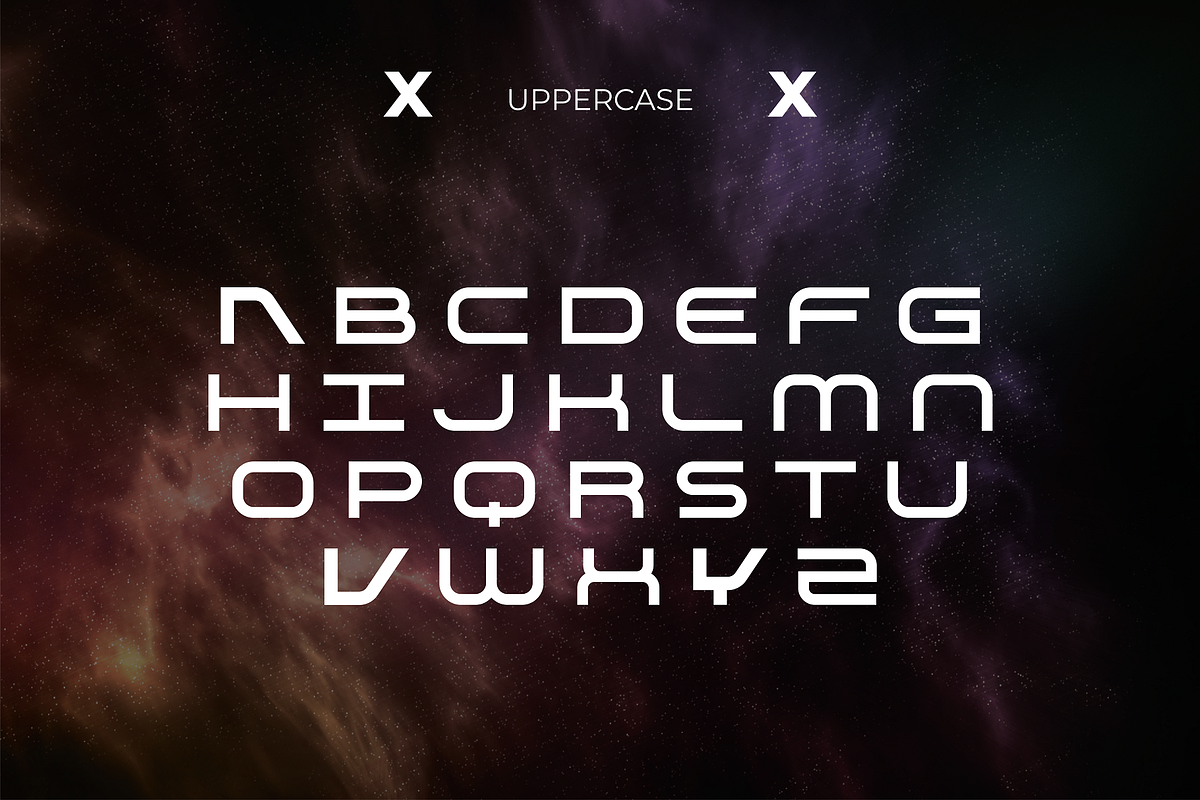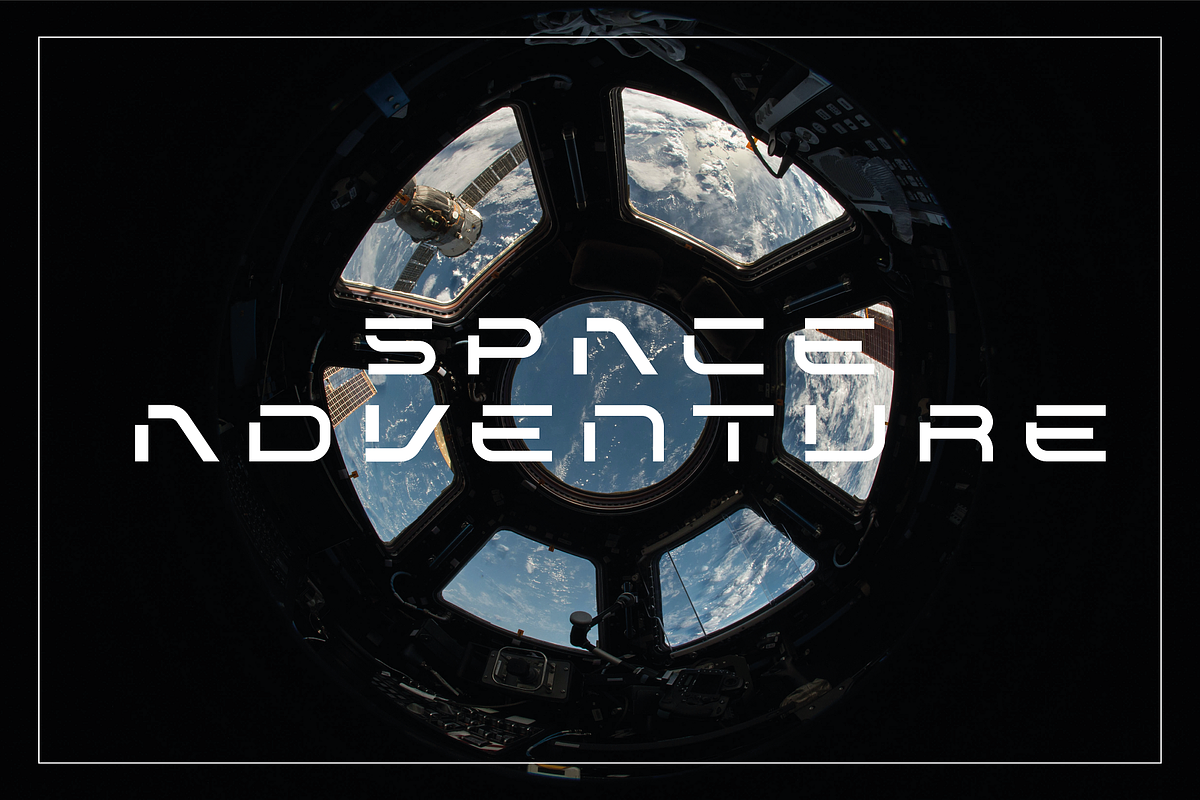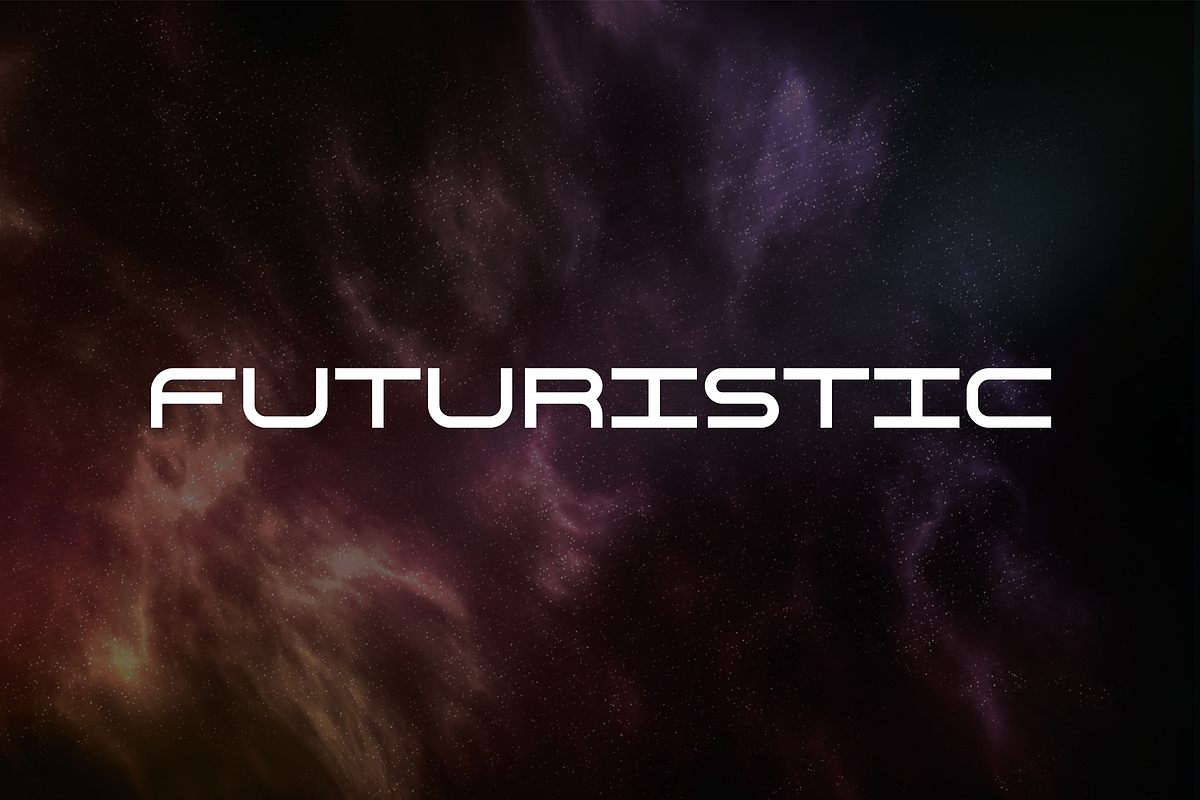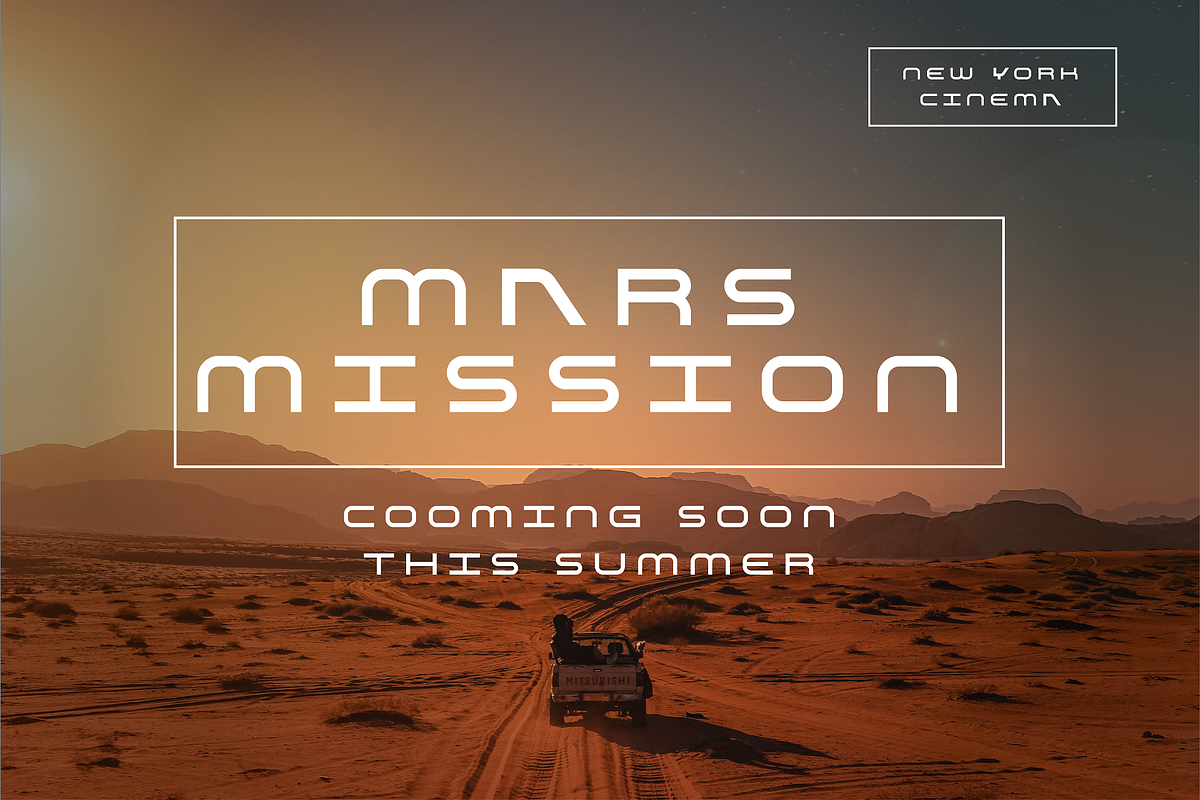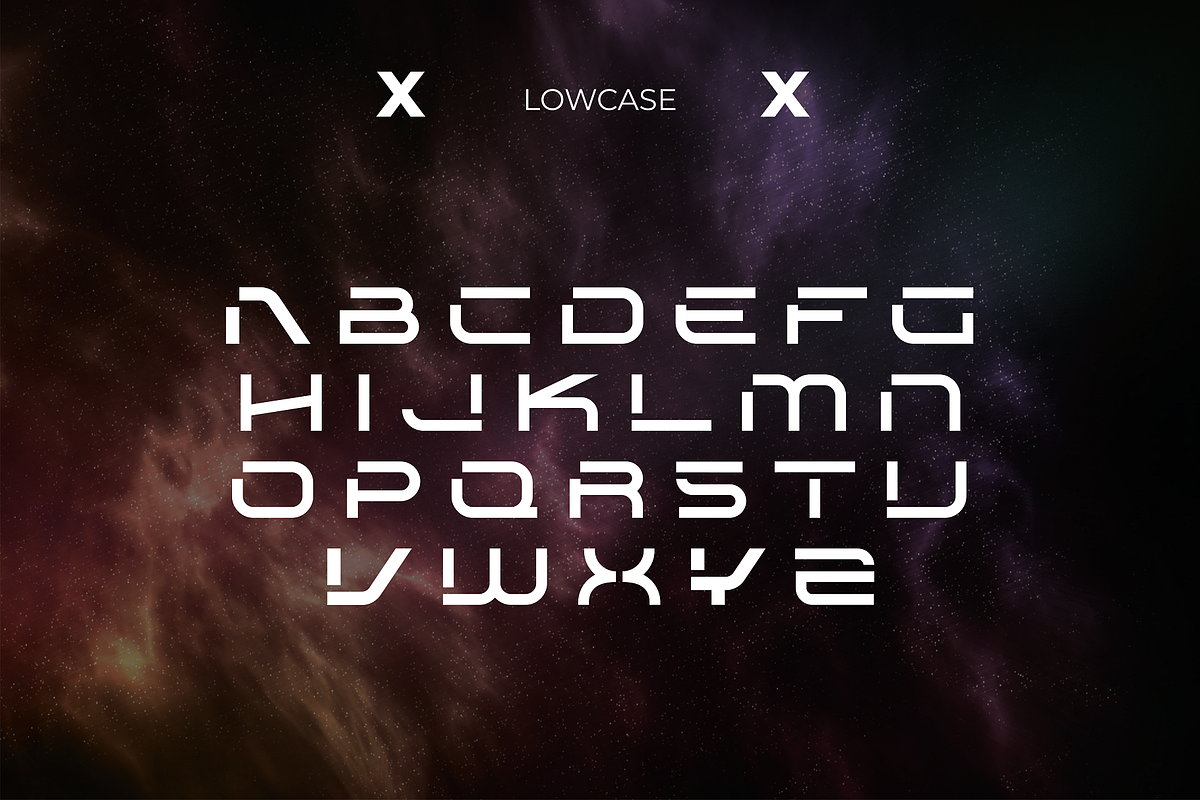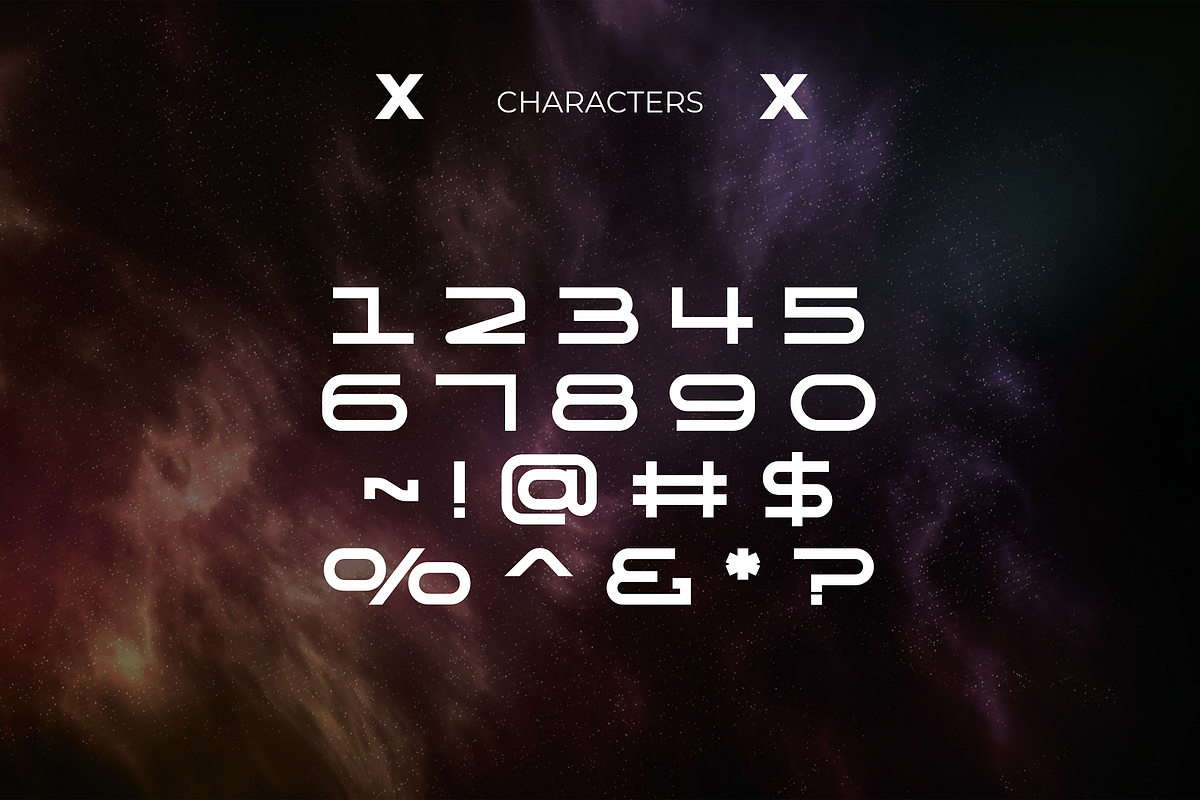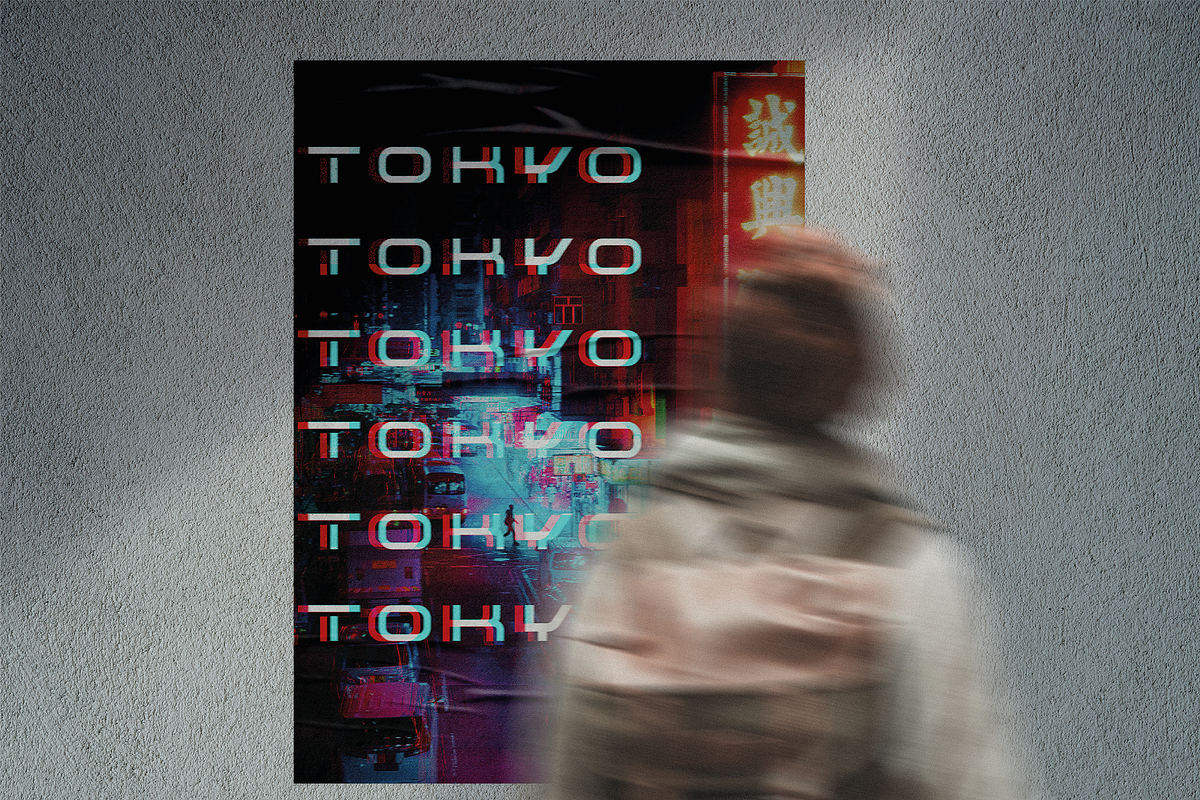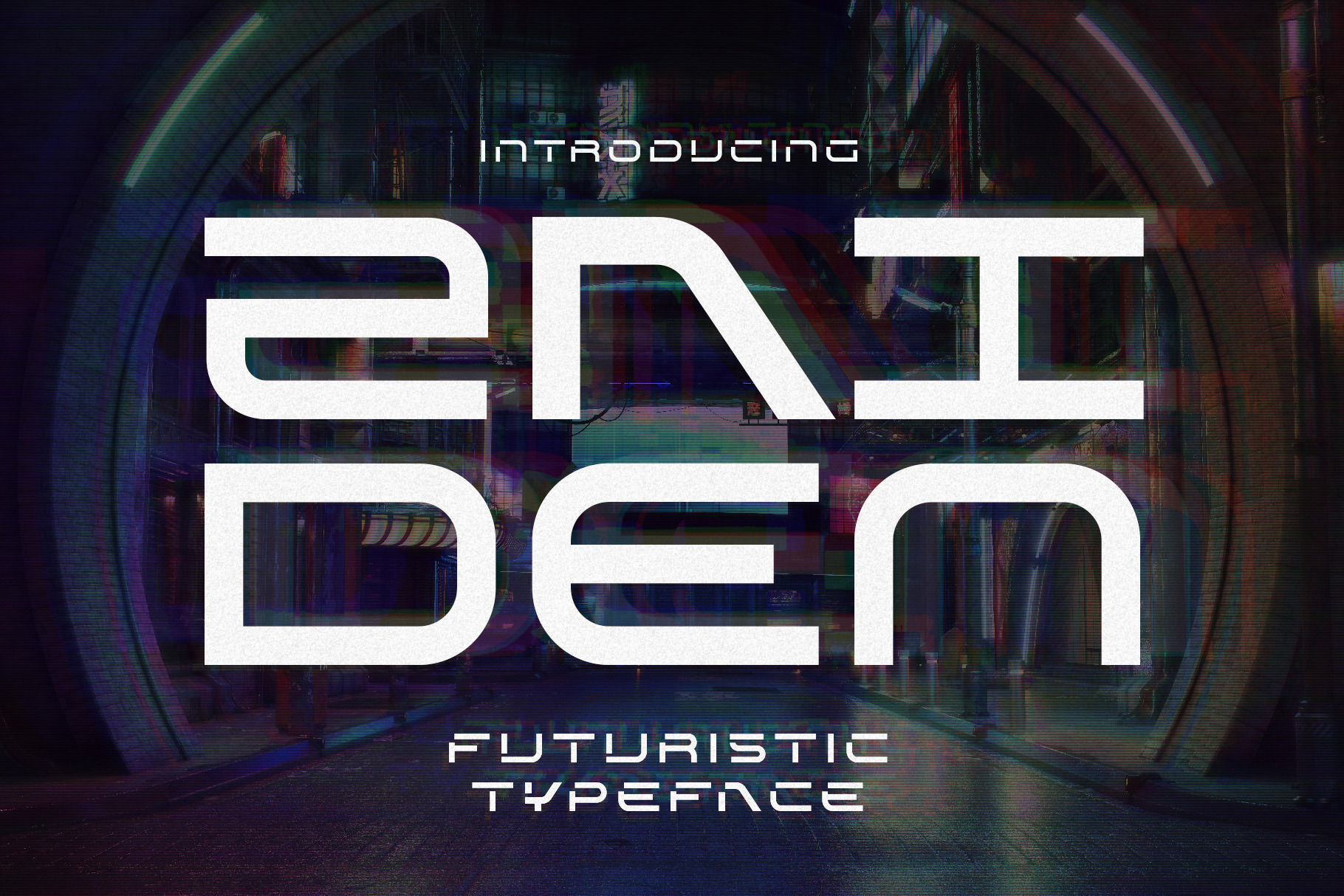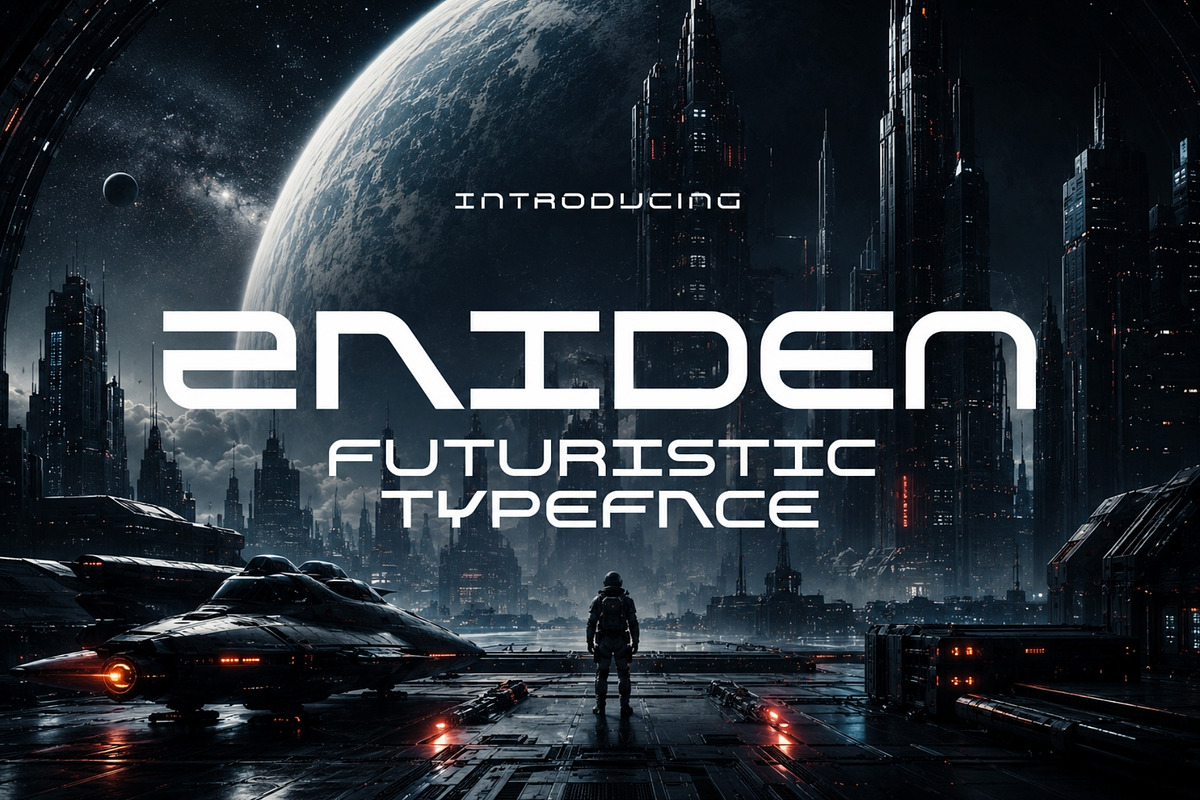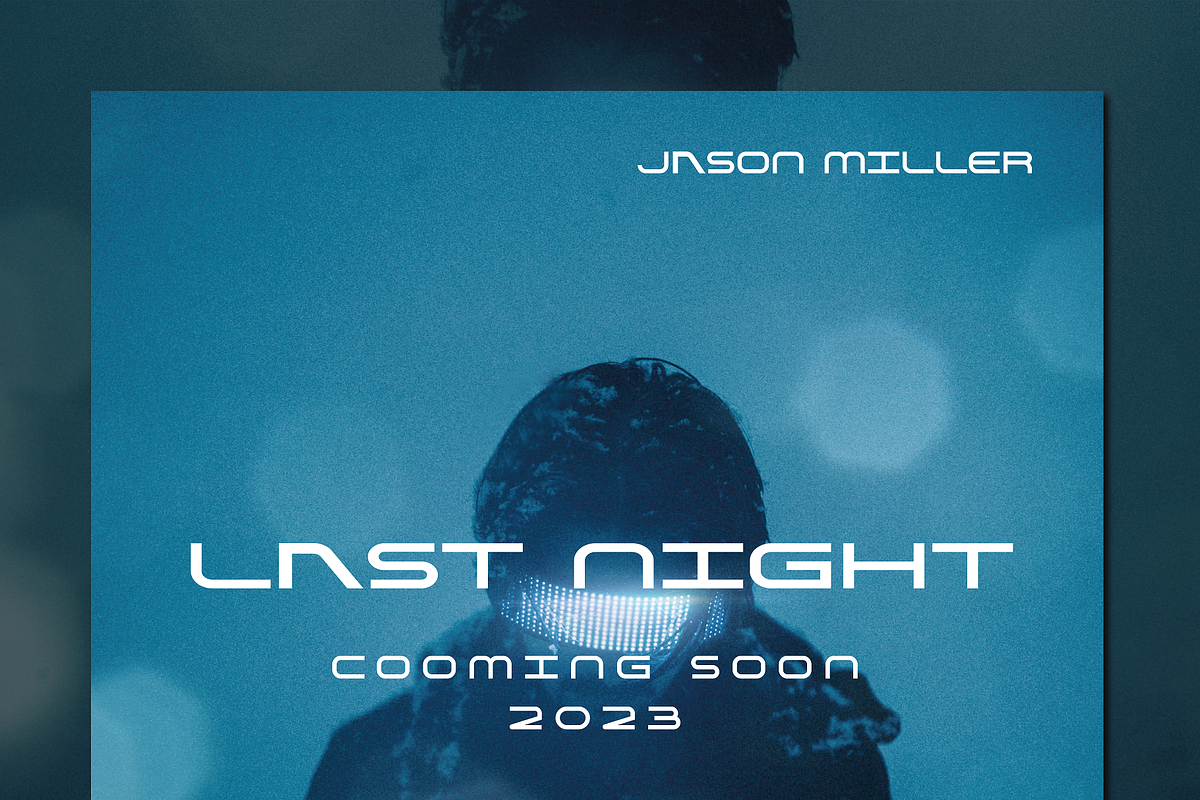
Zaiden - Futuristic Typeface
Zaiden is a futuristic font inspired by sci-fi movies and video games. Designed with minimalist style and unique letterforms, a perfect choice to create packaging, logos, labels, posters, book covers, movie titles, presentations, video games, and much more!
Zaiden is an all caps typeface with a trick up its sleeve. Each lowercase letter is different from its counterpart, which means you can mix and match letters to create unique outcomes.